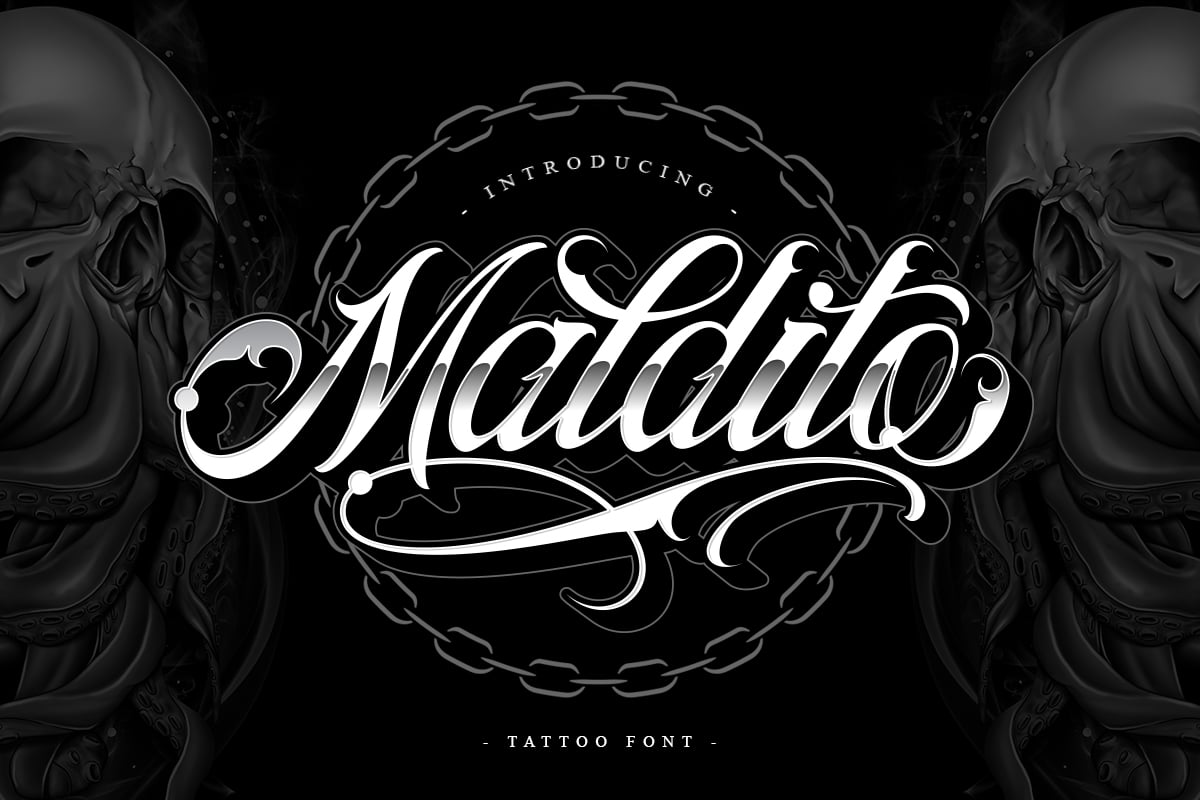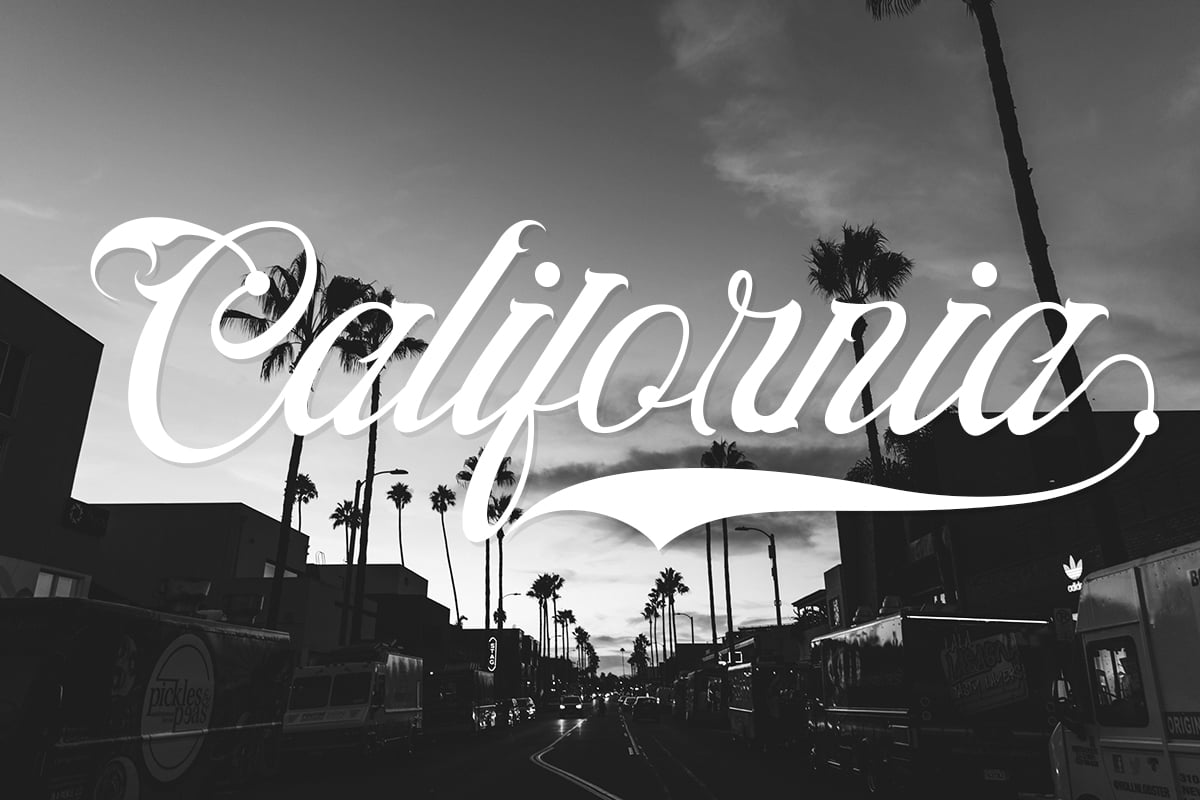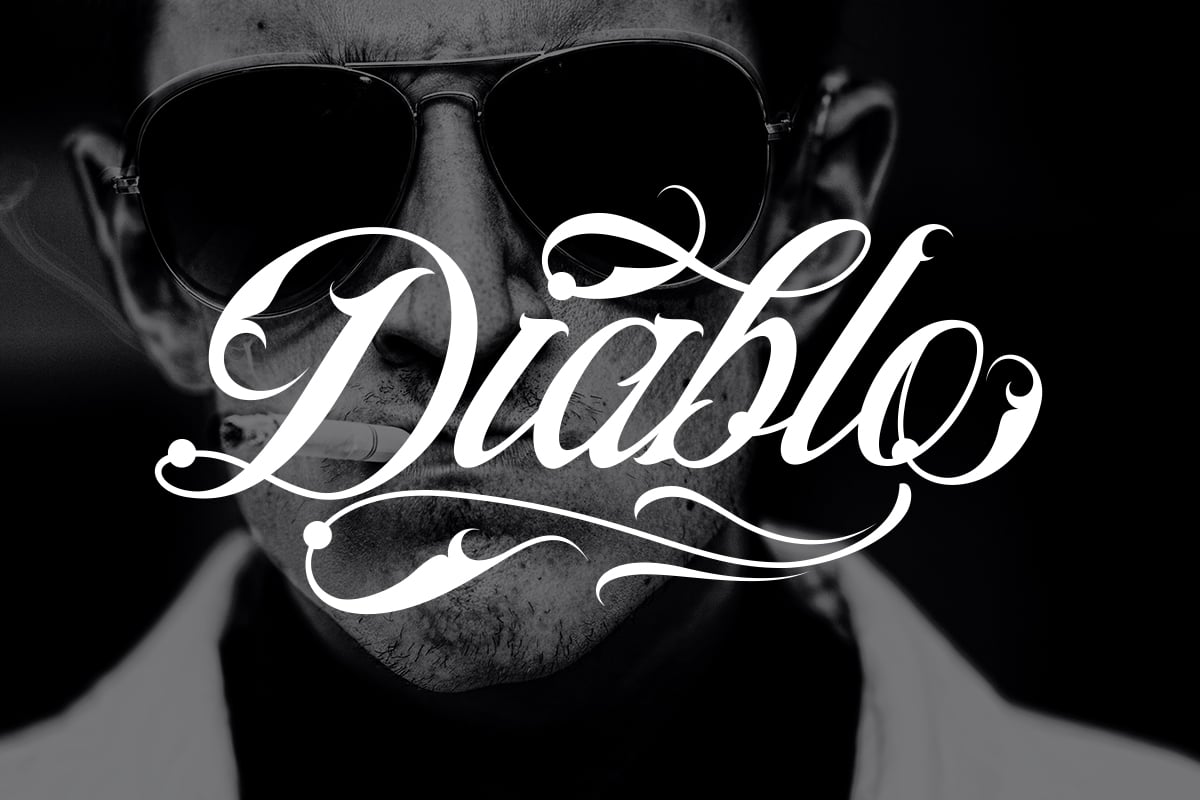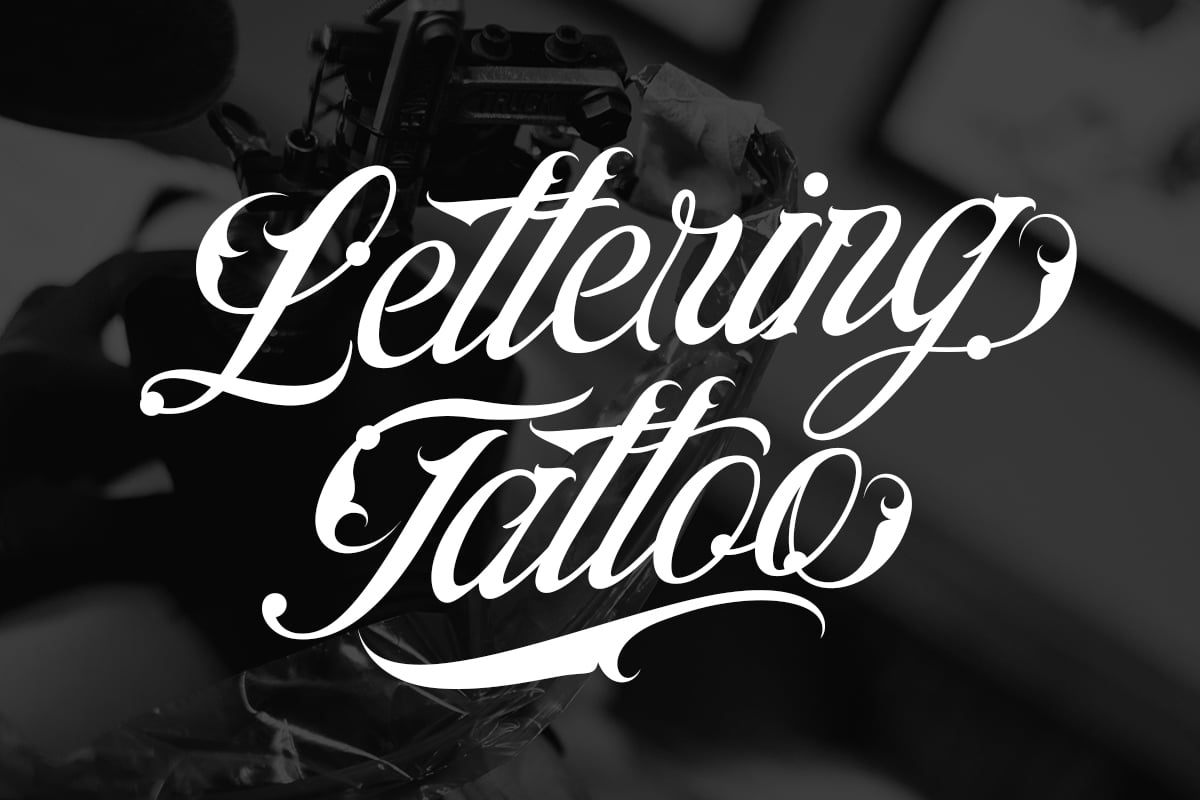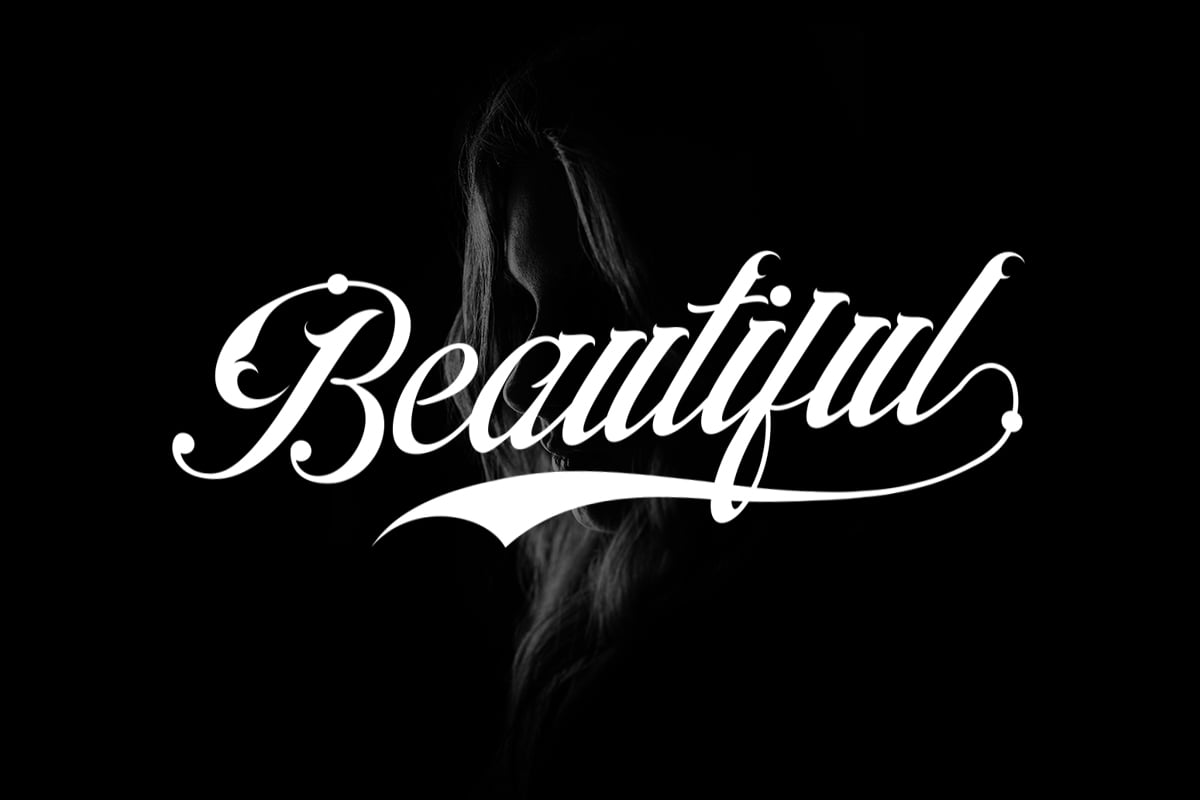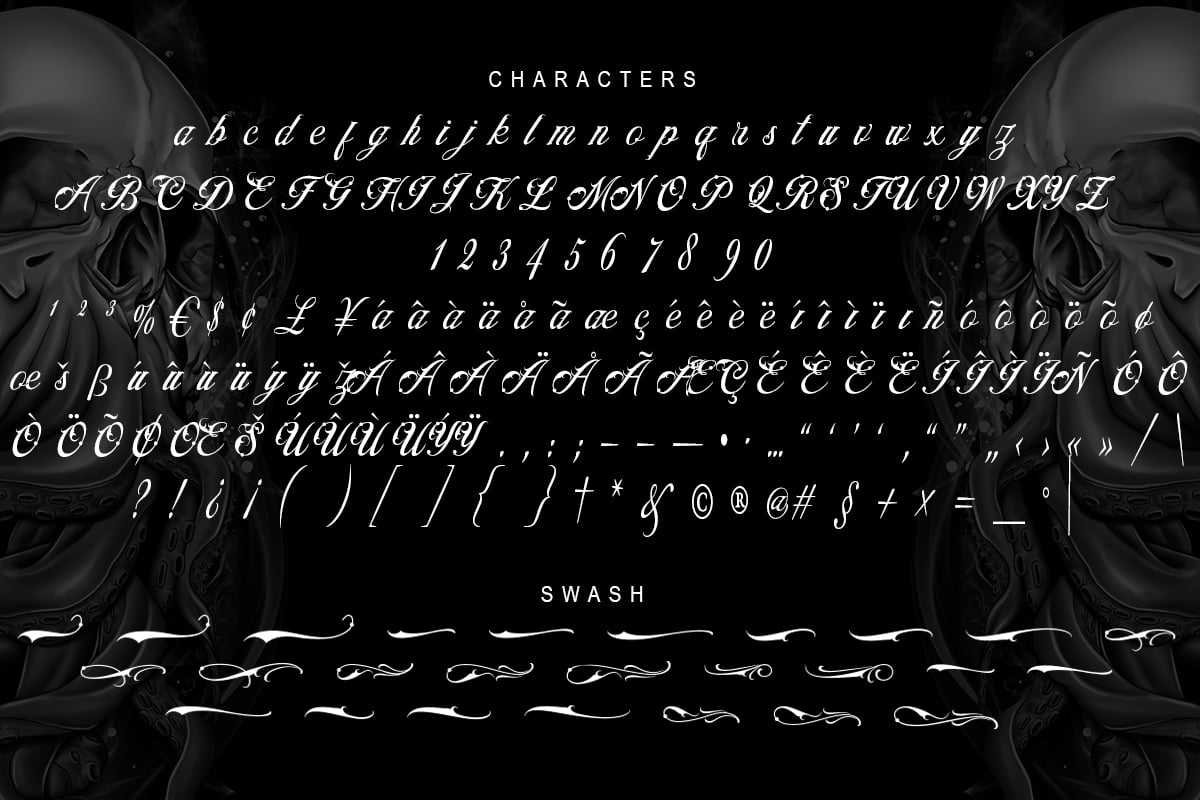
Maldito Font | Tattoo Style
Introducing of our new product the name Maldito Font | Tattoo Style. Maldito includes uppercase and lowercase letters, numerals, a large range of punctuation and ligatures. All lowercase letters include ending swashes and alternative font.
Uppercase Lowercase Number Punctuation Multilingual Swash Opentype